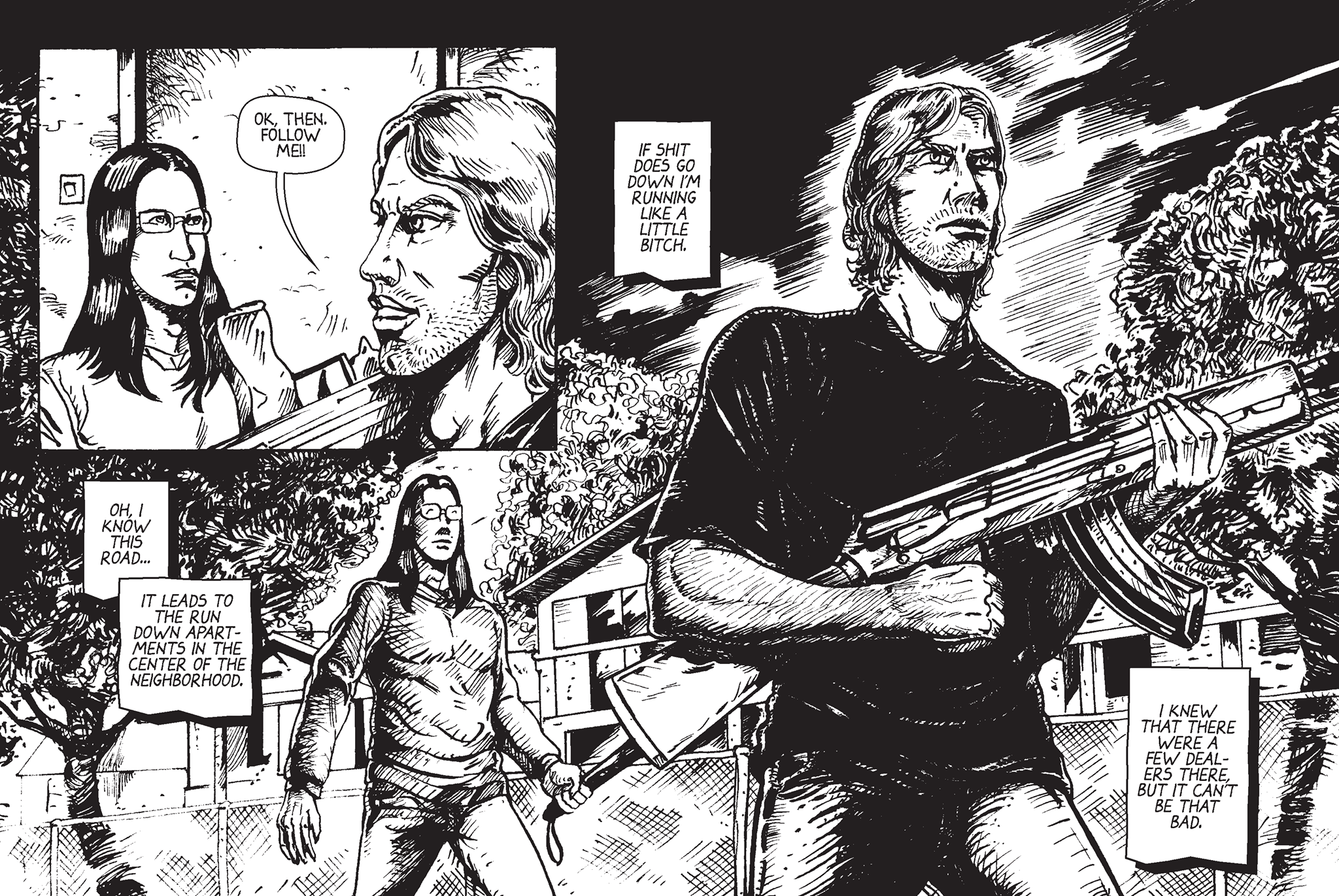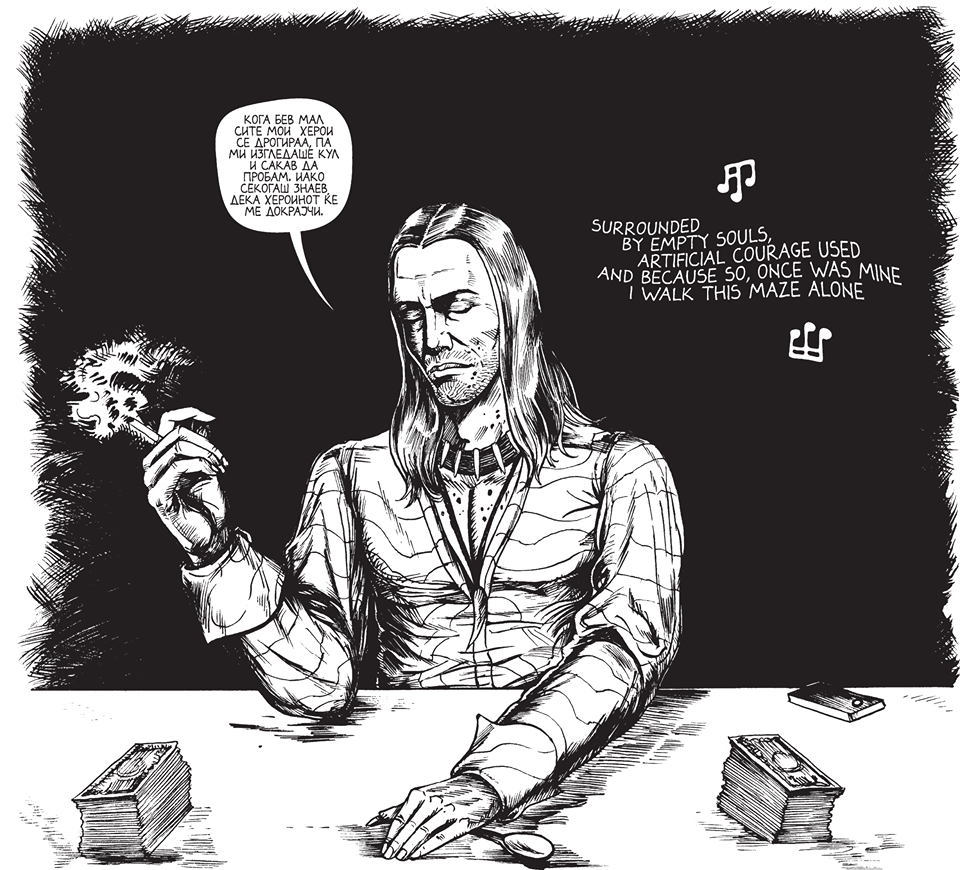
Darbog Font
About Darbog Font
Darbog is a handwritten typeface created specifically for comic book lettering (but can be used for many other uses as well). The font is created by Darko Bogdanov and is based on his own handwriting.
Darbog has Latin & Cyrillic support.